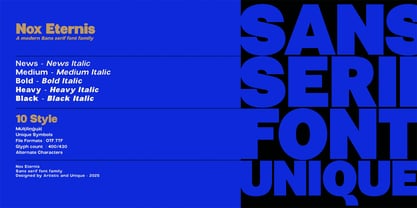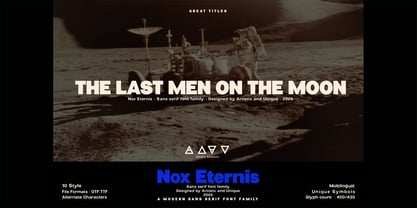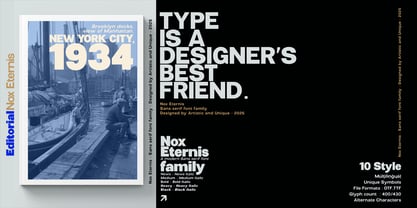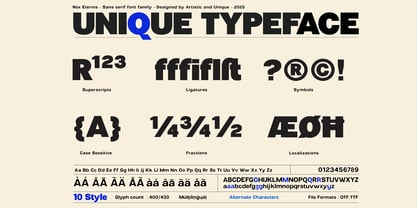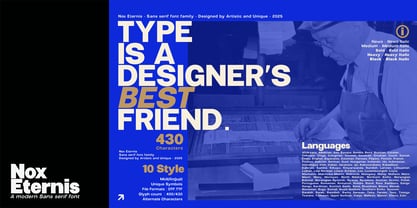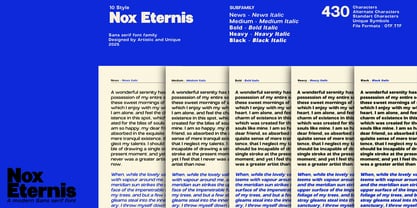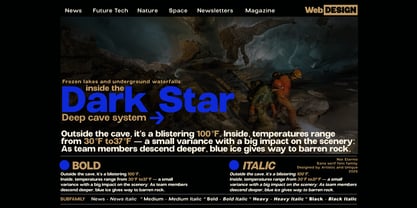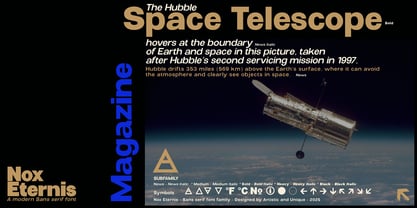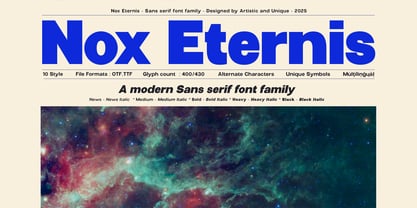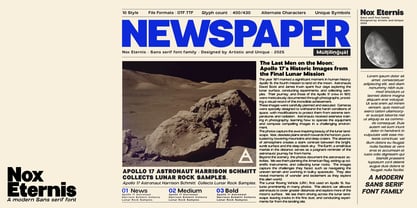
Nox Eternis
The Nox Eternis Font Family was designed by Osman Taner Kucukgenc and published by Artisticandunique. Nox Eternis contains 10 styles and family package options.
Nox Eternis - Sans serif font family - Multilingual support - 10 styles Nox Eternis is a modern and powerful font family. If you're looking for high readability with strong accents, explore this font! This sans serif font family draws inspiration from typefaces dating from the 1930s to the 1960s. The spirit of newspapers and magazines from these eras has been brought to the present day and modernized. Its nuances aim to contribute to today's modern typefaces and are on their way to becoming a timeless sans serif typeface. In the contemporary design world, Nox Eternis stands out as a sans serif font family that combines simplicity and modernism with elegance. Its versatility allows for seamless integration into both digital and print projects, making it an ideal choice for designers aiming to develop their brands. This family offers 10 different styles that provide flexibility for a variety of creative projects. Bold styles for areas requiring strong, readable emphasis, and thin styles for areas requiring elegance. Multilingual support enhances its global appeal and makes it practical. Lighter tones offer a sophisticated look, while bolder tones attract attention in headlines. Features: - Extensive Character Set - Includes uppercase, lowercase, punctuation, symbols, and numbers. - Expanded Design Flexibility - Offers multiple tones and styles. - Multilingual Support - Perfect for global projects. Whether you're designing books, magazines, or newspapers, or developing editorial headlines, websites, logos, and branding, the Nox Eternis font family offers a harmonious blend of modern and classic aesthetics. Enjoy!